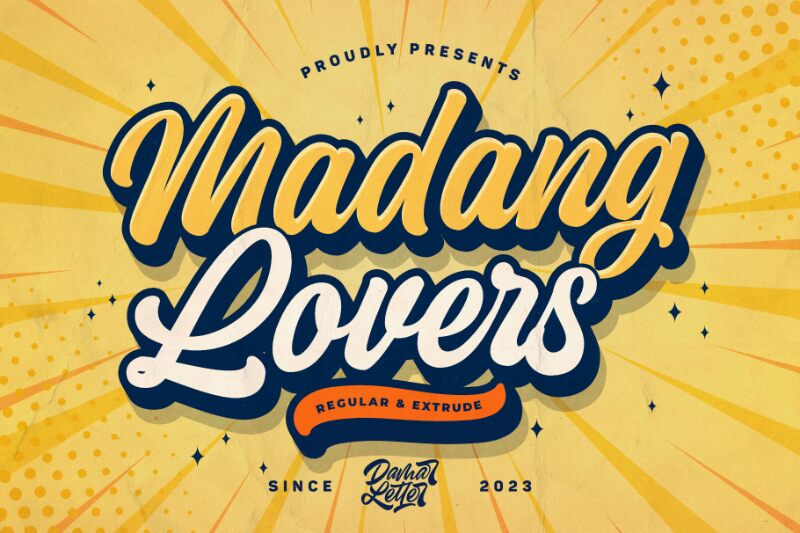
Madang Lovers font, a stunning brush typeface designed by Damarletter, is an accurate representation of today’s favourite modern style font. Dreamy and magnificent, this dynamic cursive font evokes elegance at all levels owing to its smooth thickness variation and beautiful flowing design. With such an impactful presence, no design would ignore the contribution of this free font.
Madang Lovers would go perfectly with fashion related projects especially lookbooks and magazines covers. You can also use it within branding proposals of high end products such as perfumes and cigarettes. In addition it will serve quite well in mockups presentations for packages of teas and coffees, menus for classy restaurants or even logos.
Madang Lovers